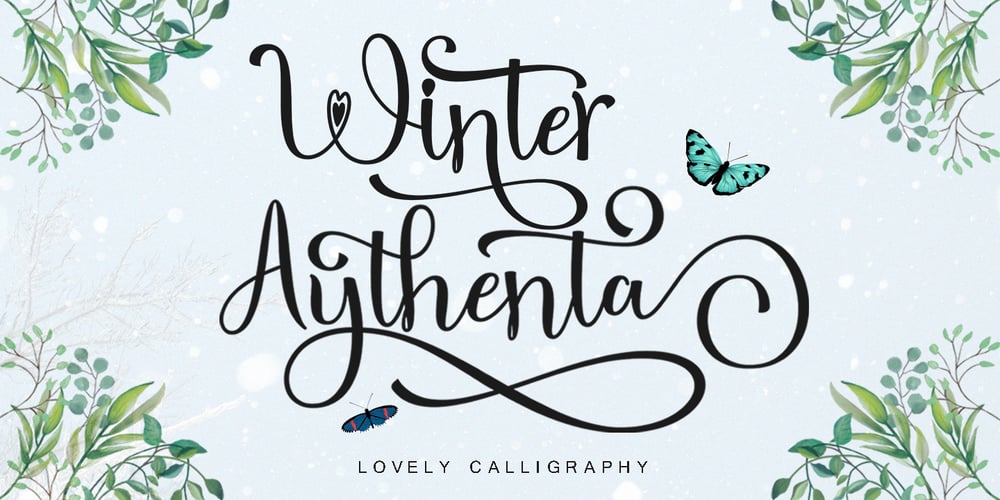
Winter Aythenta Font Family was designed by Teuku Bustami and published by TM Type. Winter Aythenta contains 1 styles and family package options. Winter Aythenta is a thin lettered and graceful script font. Fall for its ravishing style and use it to create gorgeous wedding invitations, beautiful stationary art, eye-catching social media posts, and much more! This font is PUA encoded which means you can access all glyphs and swashes with ease!